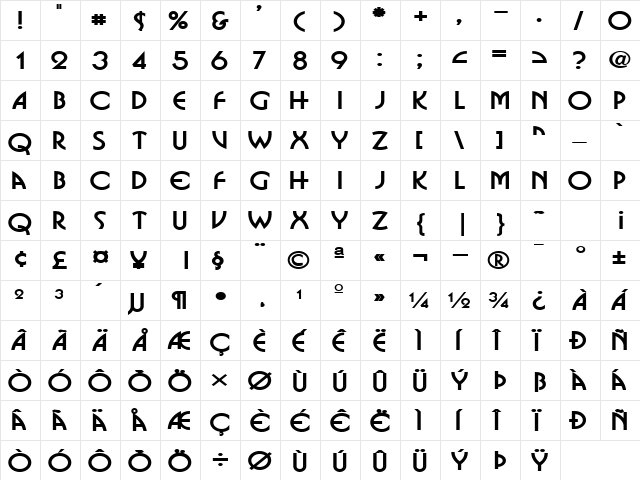
Bosnia Wide Bold
Design Context for Bosnia Wide Typeface
Bosnia Wide offers clean, dependable letterforms without strong stylistic allegiance, making it a practical choice for designers who need flexibility. The heavy weight commands attention and anchors typographic hierarchies.